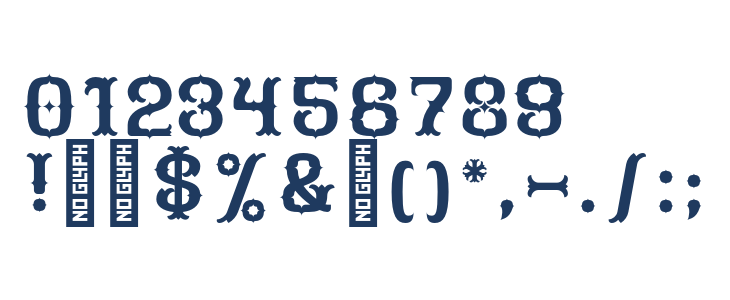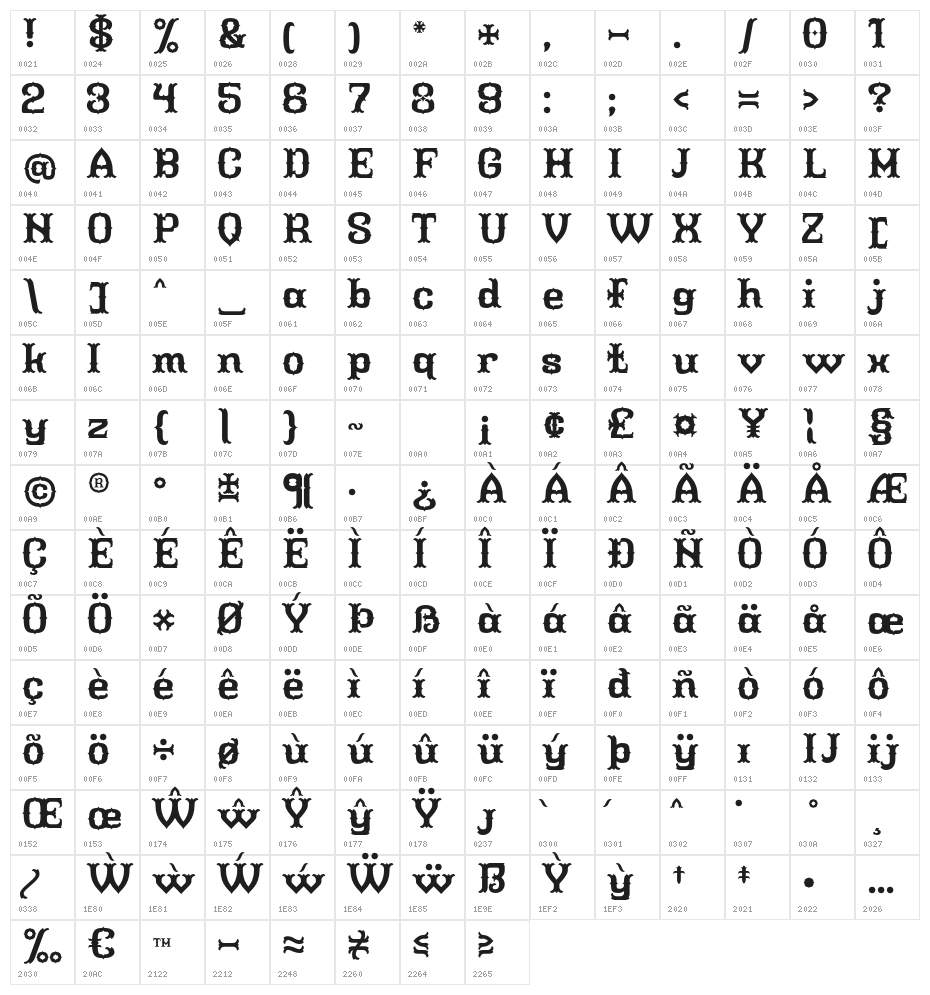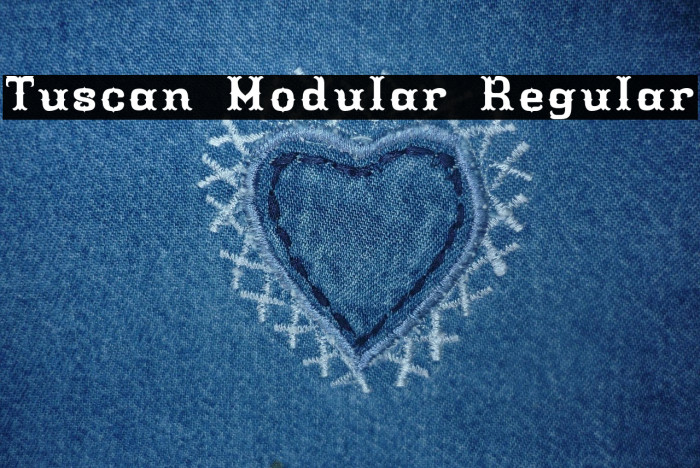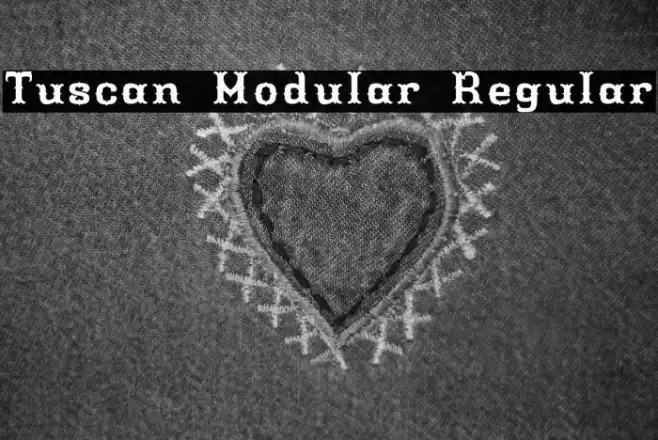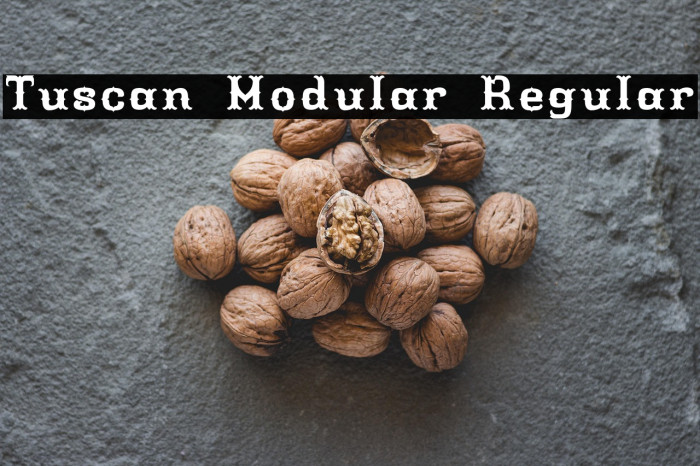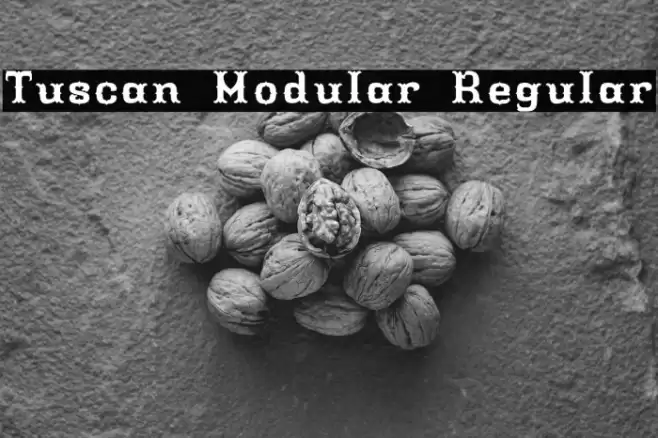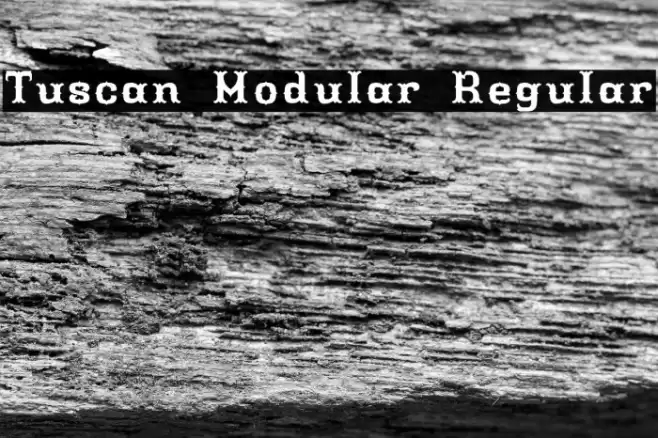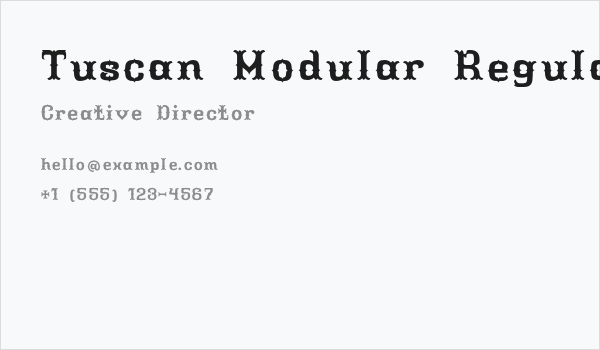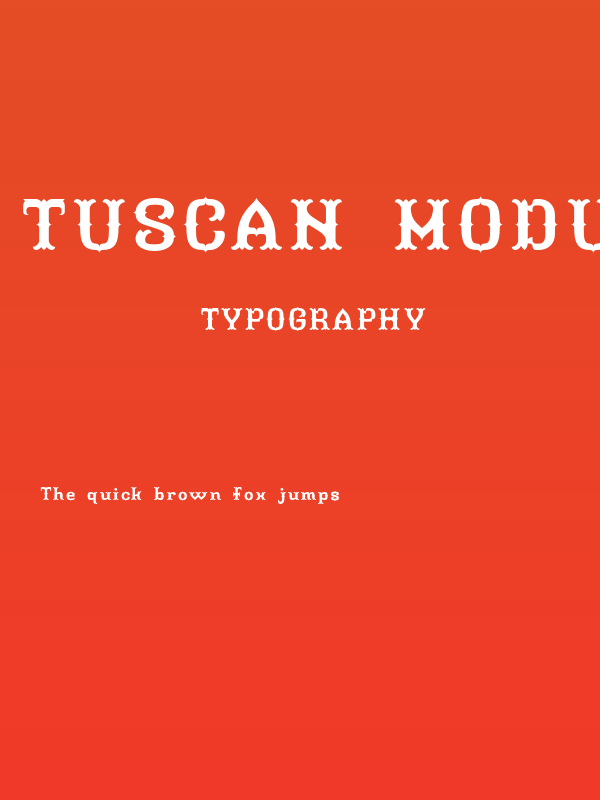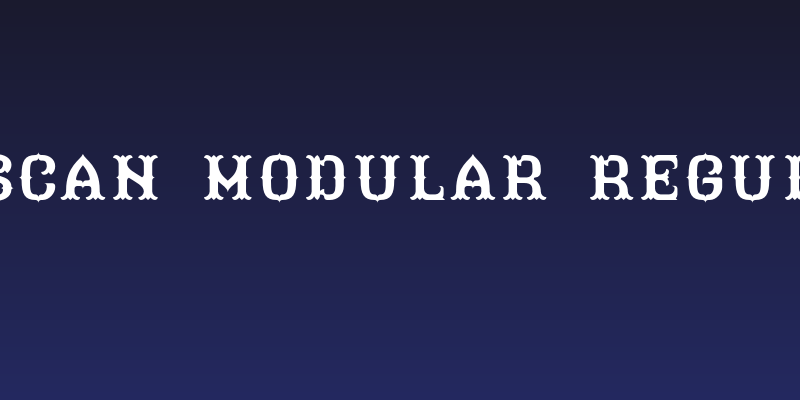
Tuscan Modular Regular Font
Tuscan Modular Regular Description
This font features a bold and decorative style with intricate details reminiscent of vintage Western typography. Each character is adorned with unique flourishes and sharp edges, creating a striking visual impact. The uppercase and lowercase letters maintain a consistent design, while the numerals and special characters complement the overall aesthetic. The font's distinct appearance makes it suitable for projects requiring a touch of nostalgia or a bold statement.
| Proposed Projects | Ideal for posters, logos, branding, and themed event invitations that require a vintage or Western aesthetic. |